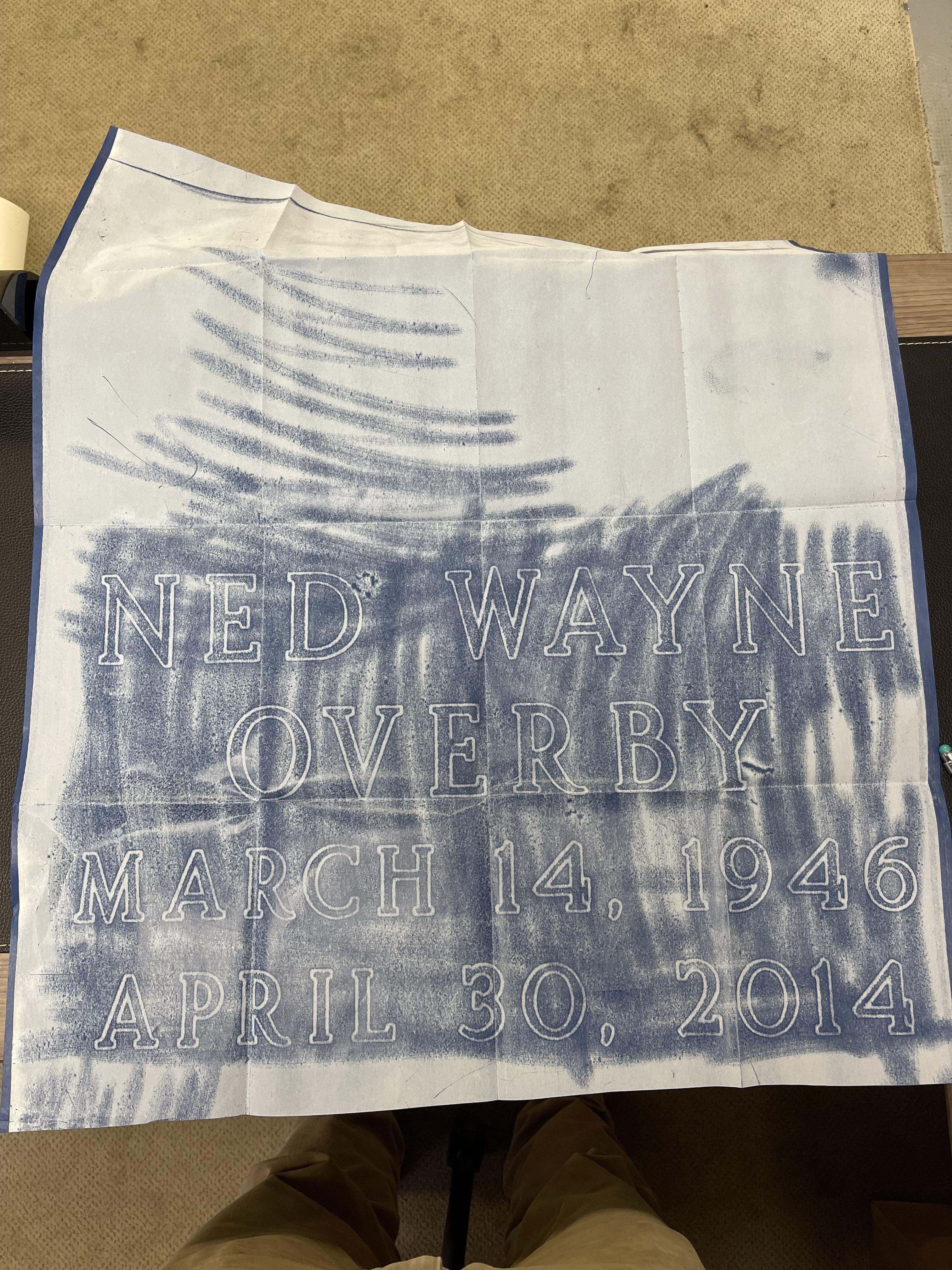
Old ledgers in city cemetery. Some kind of frosted outlined lettering. Doesn’t look quite like mod roman though…. Thanks in advance
Hi John, this is the SKS Double Outline plastic stencil press alphabets in the largest sizes (2″-3.5″), or it is a possibly a digital version in some memorial design software. Cochrans for instance has versions of it available. The punctuation has either been hand-cut or it was not drawn up directly from the plastic alphabet.
The MLC has a version of the font available in the font shop: MLC ScotchKut Double Outline – Medium-Large